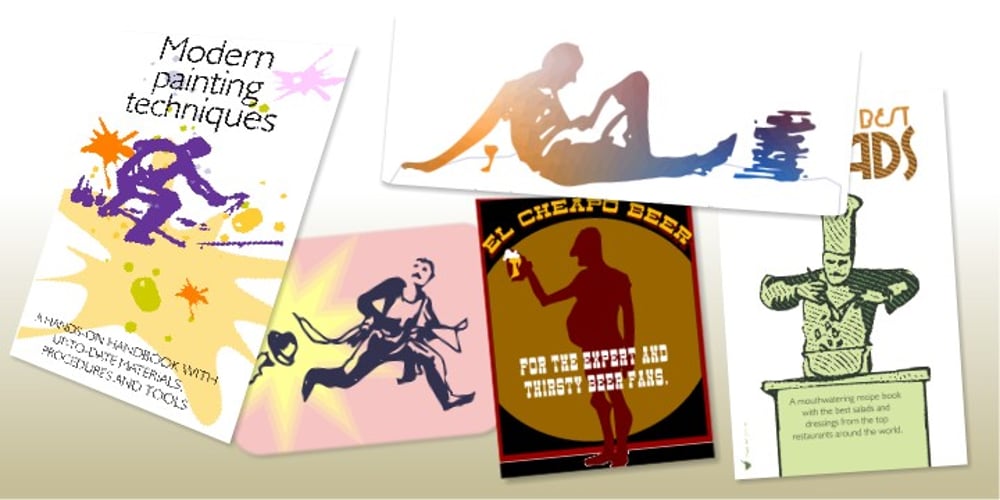
Ombres Font Family was designed by Joan M. Mas and published by Typephases. Ombres contains 3 styles and family package options. Very close thematically and in style to the rest of our “whimbats” (the Absurdies, Bizarries, Illustries, Genteta and Whimsies series), the Ombres contain a number of peculiar silhouettes and illustrations of people that range from cute to scary, with everything in between. Ombres offers152 pictures in 3 files. These imaginary characters were produced with different techniques: quick pencil sketches, ink, watercolour, though once digitized and simplified to bring them into the font files there is little apparent difference. The silhouettes, rather than flat shadows are more dimensional in their look, because they have been digitized retaining the original brushwork or pencil strokes of their source drawings. Some of them remind of the venerable tradition of metal stock cuts from vintage type foundries. The digitized results are quite different, but the energetic nature of the subjects has been mantained. Their vectorial file format means you can use them at any size with no loss of quality. Every Ombres dingbat offers ready-made images for a variety of creative projects. They can be used as they come or easily customized in any graphics program. At small sizes they are ideal spot illustrations with a whimsical touch; at large sizes they can bring a whole page, a spread or even a big poster to live.